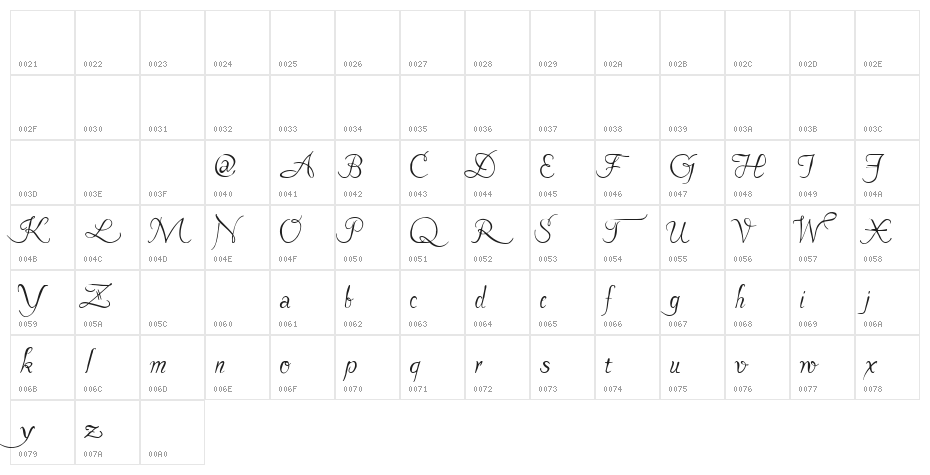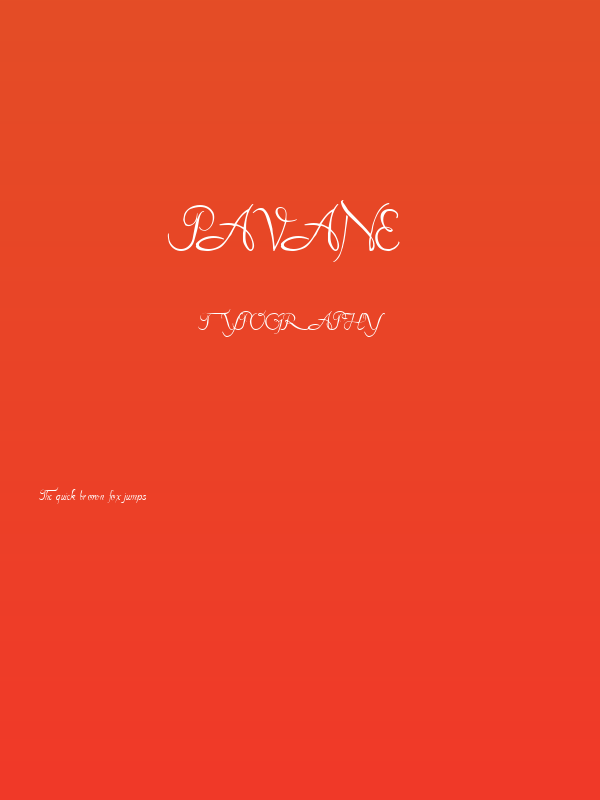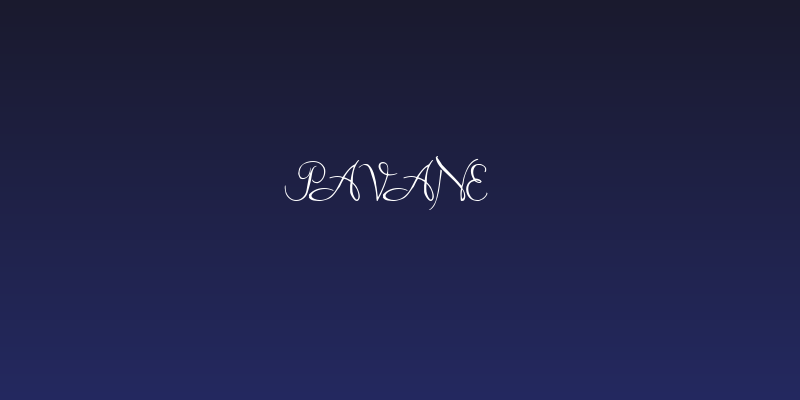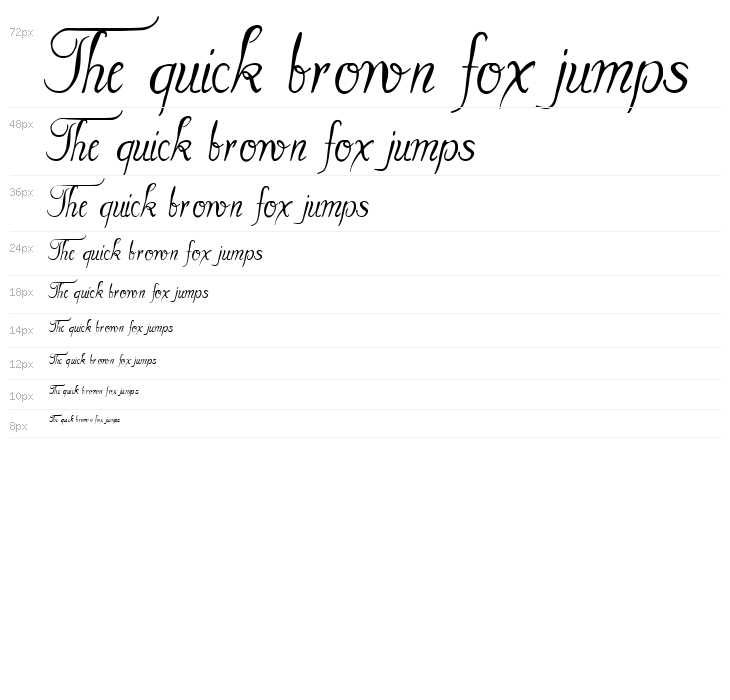
Pavane Font
Pavane Description
This elegant script font features intricate, flowing lines and a calligraphic style that exudes sophistication and grace. The uppercase letters are adorned with elaborate swashes and flourishes, giving them a decorative and ornate appearance. The lowercase letters maintain a more subdued elegance, with gentle curves and a consistent stroke width that complements the uppercase characters. The numerals and special characters are designed with the same attention to detail, ensuring a cohesive look across all elements. This font is perfect for projects that require a touch of luxury and refinement.
| Proposed Projects | Ideal for wedding invitations, luxury branding, elegant packaging, and formal event programs. |